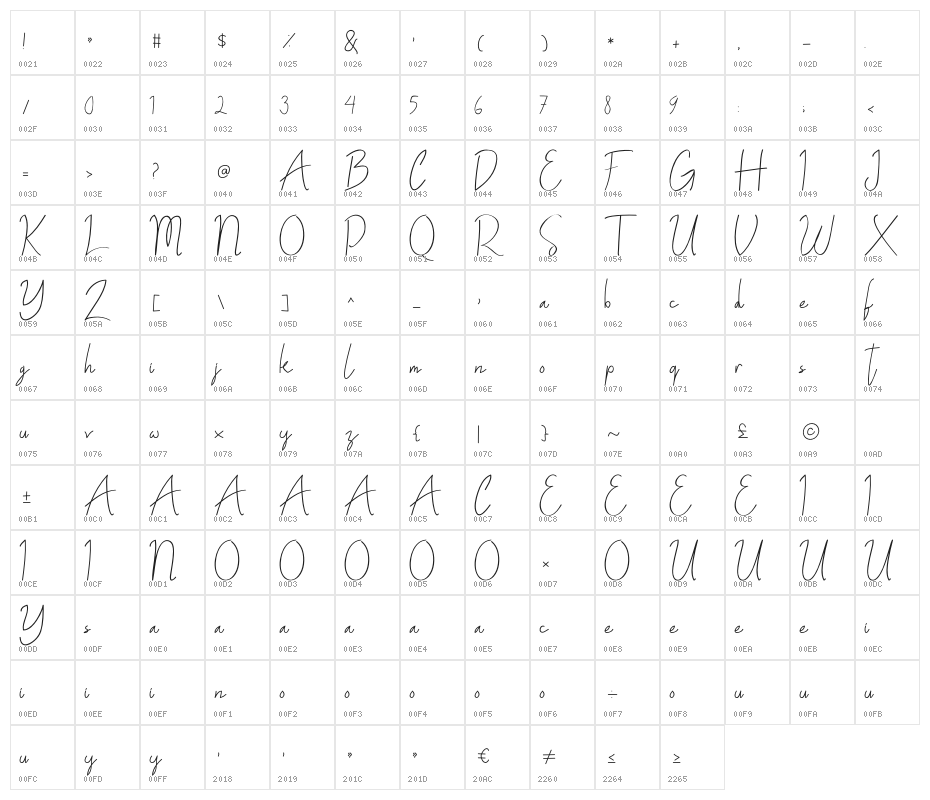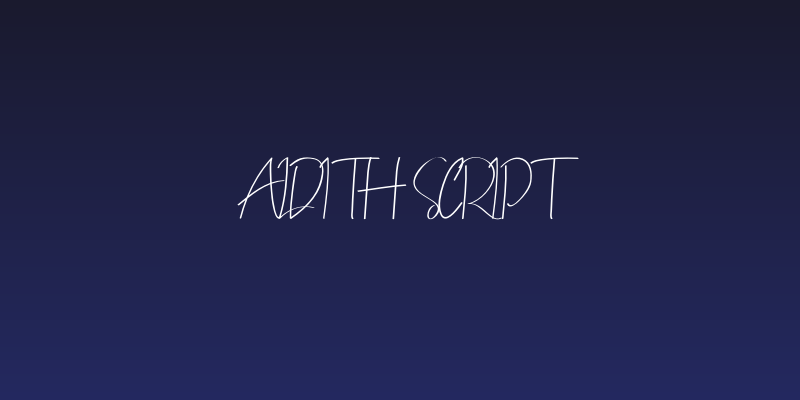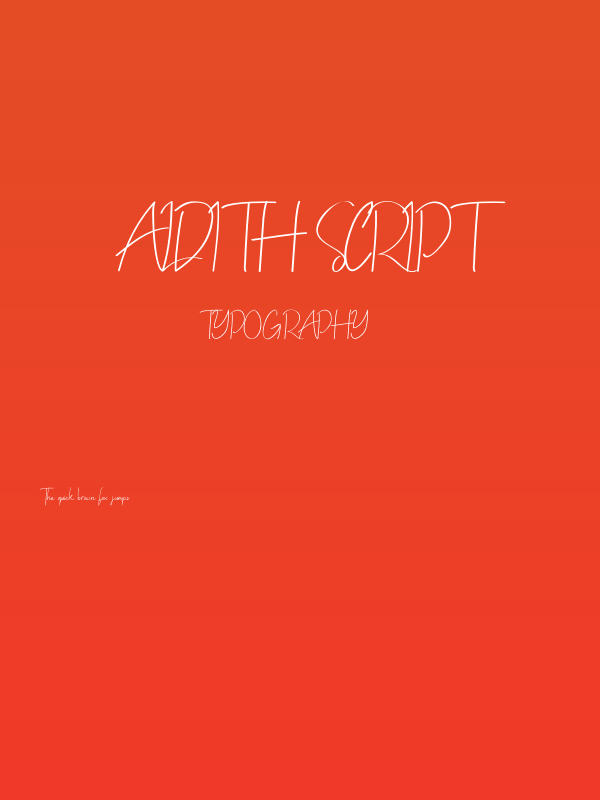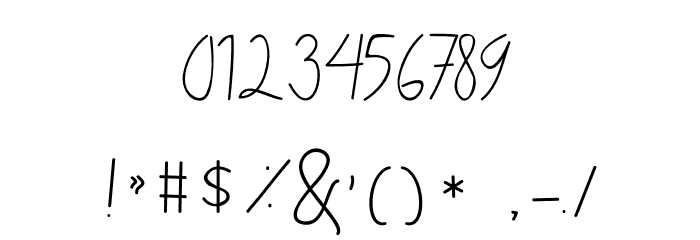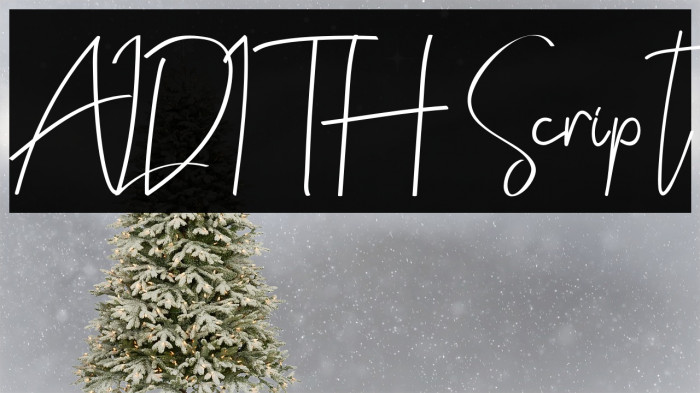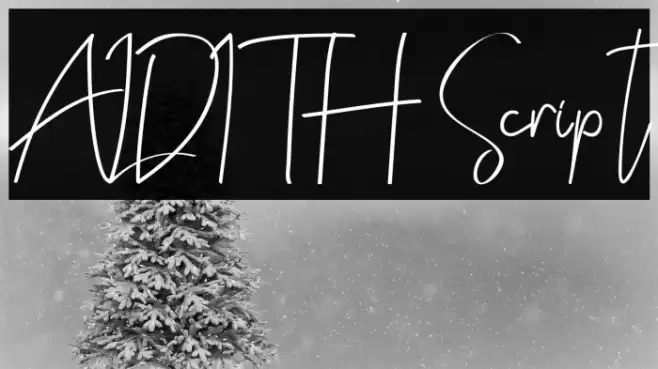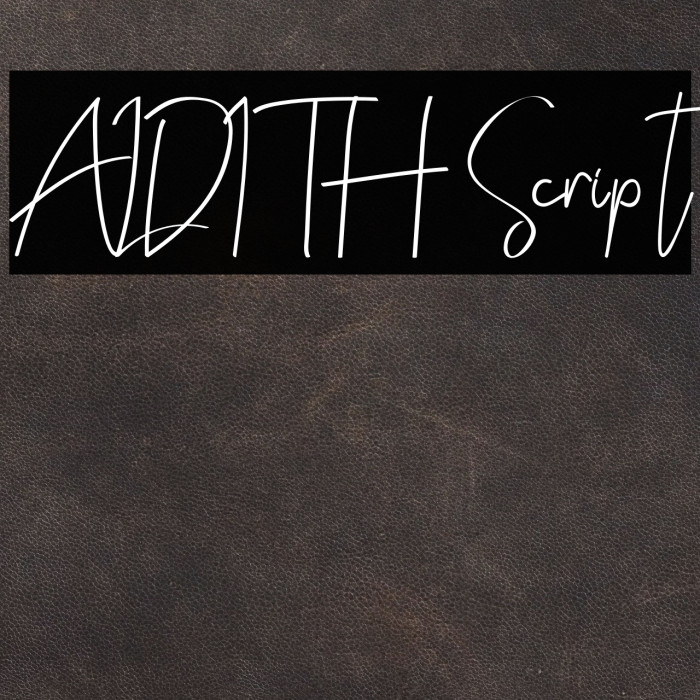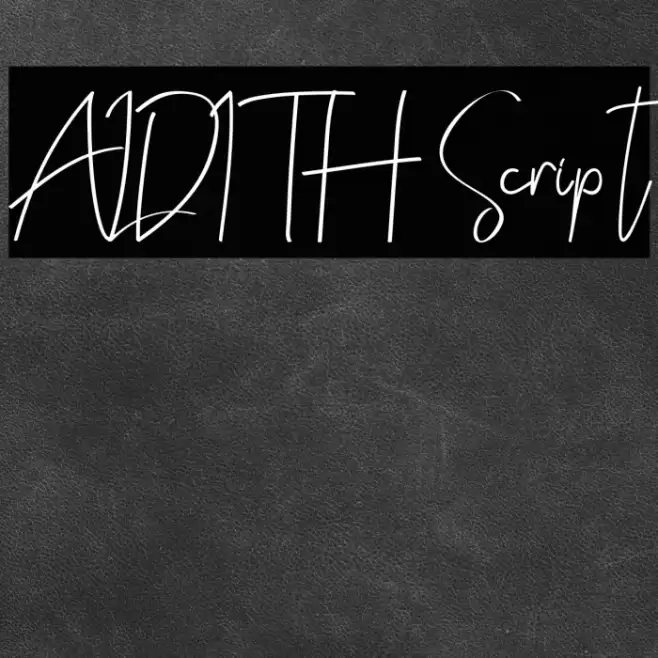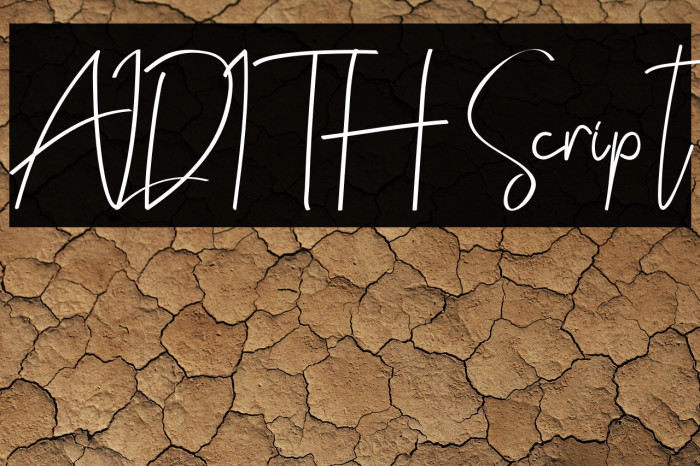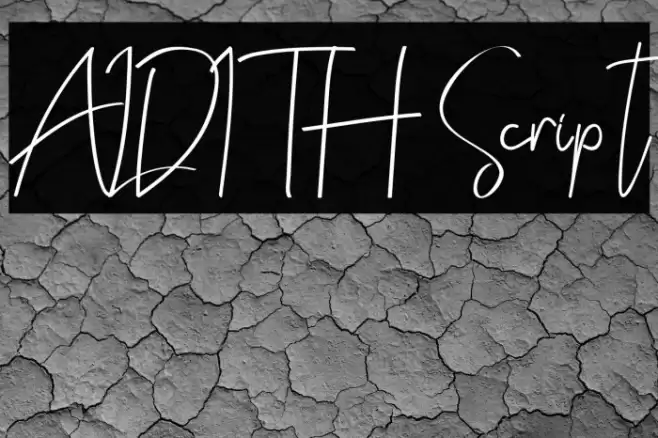
ALDITH Script Font
ALDITH Script Description
This script font exudes a casual elegance with its flowing, handwritten style. The uppercase letters are tall and slender, with a slight slant that adds a sense of movement and grace. The lowercase characters are more compact, maintaining a consistent fluidity that complements the uppercase set. The numbers are clear and legible, following the same elegant script style. Special characters are thoughtfully designed to match the overall aesthetic, making this font versatile for various creative applications. Its unique charm lies in the delicate balance between formality and playfulness, making it suitable for a wide range of design projects.
| Overall Style | Elegant, Casual |
| Use Case | Logos, Invitations, Personal Branding |
| Proposed Projects | Ideal for wedding invitations, greeting cards, personal branding, and elegant packaging designs. |